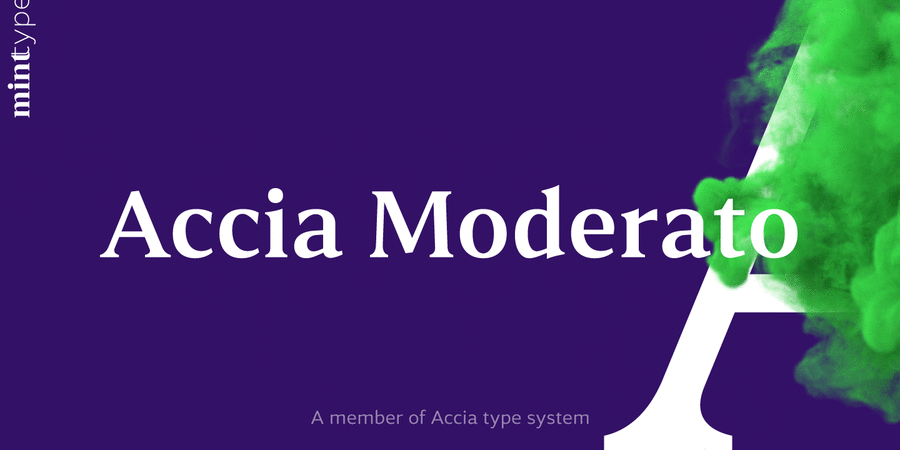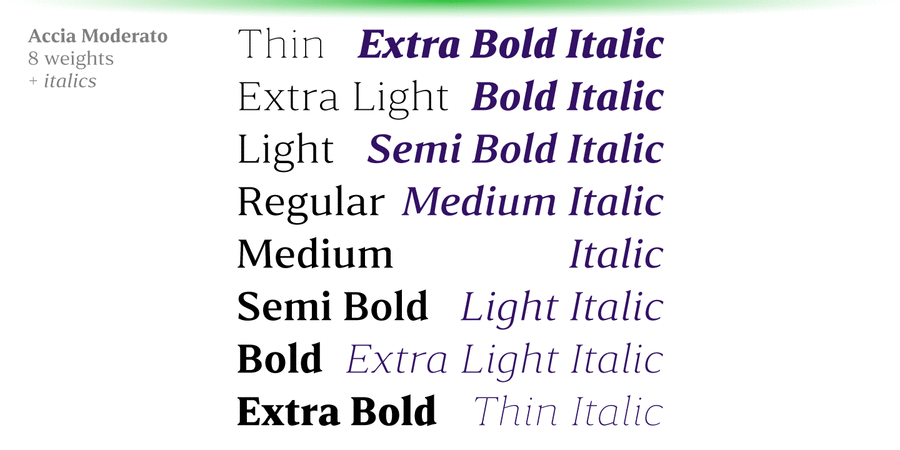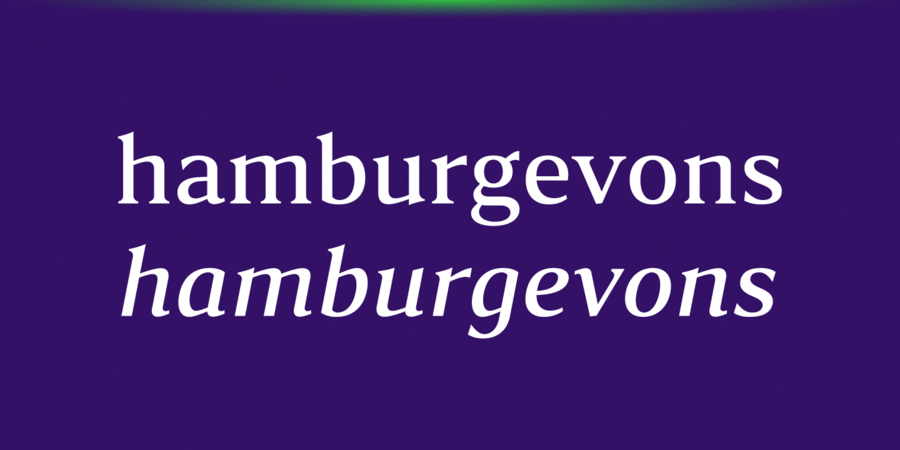
About Accia Moderato is a contemporary serif typeface with moderate contrast and large x-height. It will become a great choice for primary body copy. The font family contains 8 weights from Thin to Extra Bold, with matching true italics. It supports extensive language support including Cyrillic, as well as numerous OpenType features such as small caps, ligatures, several sets of figures, case-sensitive punctuation, ordinals. Accia Moderato is a member of Accia Type System. It encompasses five typefaces ranging from sans-serif to expressive serif, giving you the possibility to create sophisticated cohesive designs. Accia Type system consists of Accia Sans, Accia Flare, Accia Piano, Accia Moderato, and Accia Forte. The typeface was designed by Andriy Konstantynov and released in Mint Type foundry in 2021.
Associations for font family Accia ModeratoTypeface personality and character:
thin, refined, delicate, easy, fashionable, high-quality, cultural, select, noble, harmonious, elite, expensive, beautiful, masterful, famous, original, rich, urban, transparent, sharp, thorny, luxurious, artistic, flat, balanced, cosmopolitan, technically, modern, accurate, logical, educated, serious, clever, solid, crisp, cutting, dynamic, polite, comme il faut, clear, business, moderate, practical, available, strict, tactful, expressive, distinctive, aristocratic, historical, traditional, nostalgic, secular, interesting, humanitarian, stable, royal, pretentious, imperial, bright, stone, proud, convincing, authoritative, voiced, strong, notable, splashy, solemn, ambitious, Roman, imperious, entertaining, grandiose, great, majestic, monumental, self-assured, architectural, formidable, motivating, responsible